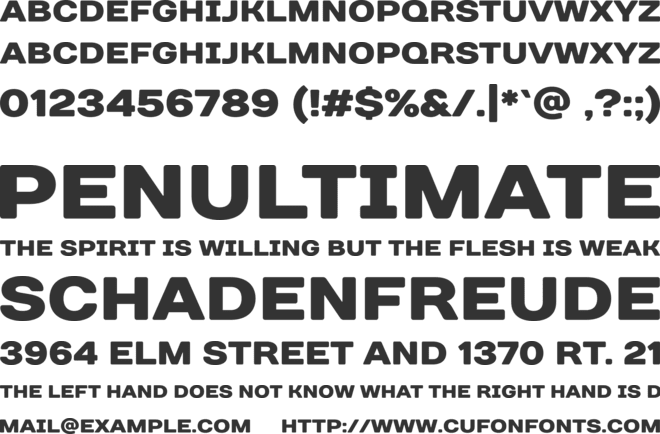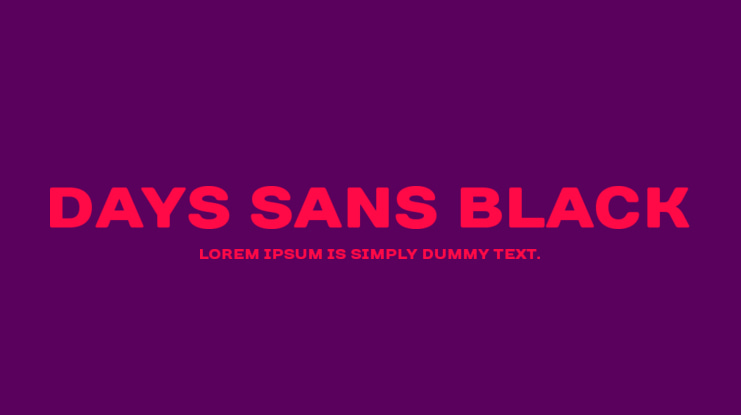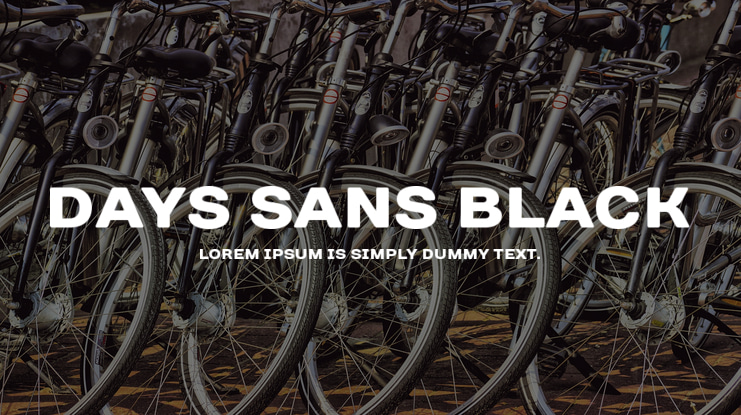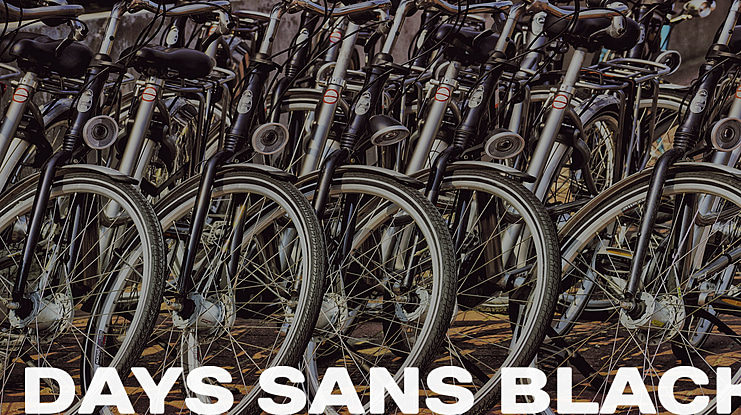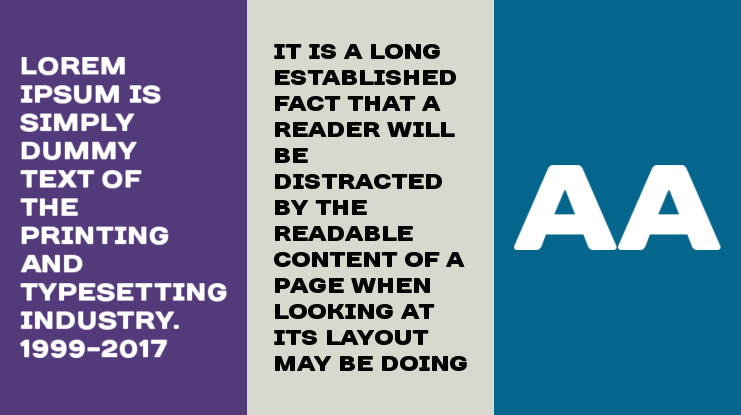
Days Sans Black Font
Days Sans Black is a free font which is a cropped version of the Days Sans font family, a qualitative reincarnation of the legendary free font Days. The font became more smooth and soft. Now this is a text font family. We added in this font family new typefaces and support for many codepages and languages.
The fonts are very convenient to use in web, mobile apps and in desktop computers. The font family Days Sans contains many languages and alphabets, as well as compatible with other TypeType fonts.